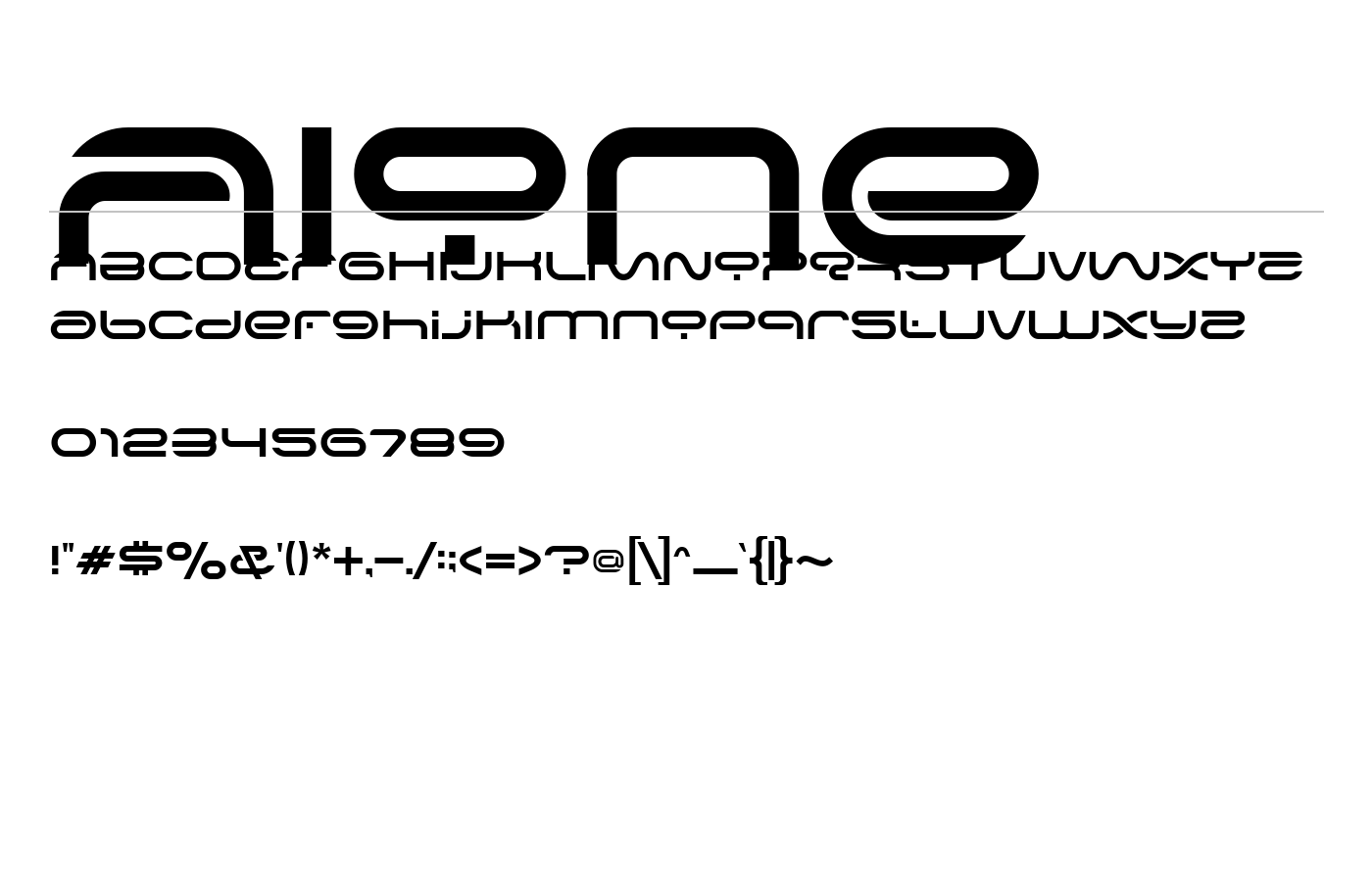
Alone Font is a sleek, modern sans serif typeface with a futuristic and geometric design. It features rounded corners and consistent stroke weight, giving it a clean yet distinctive look ideal for technology-focused branding, digital interfaces, and contemporary headlines. Its unique letterforms and compact spacing make it perfect for creating a bold, cutting-edge impression in logos and display uses.
Alone Font
About Alone Font
| Font family | Alone Font |
| Designer | Burhan Afif |